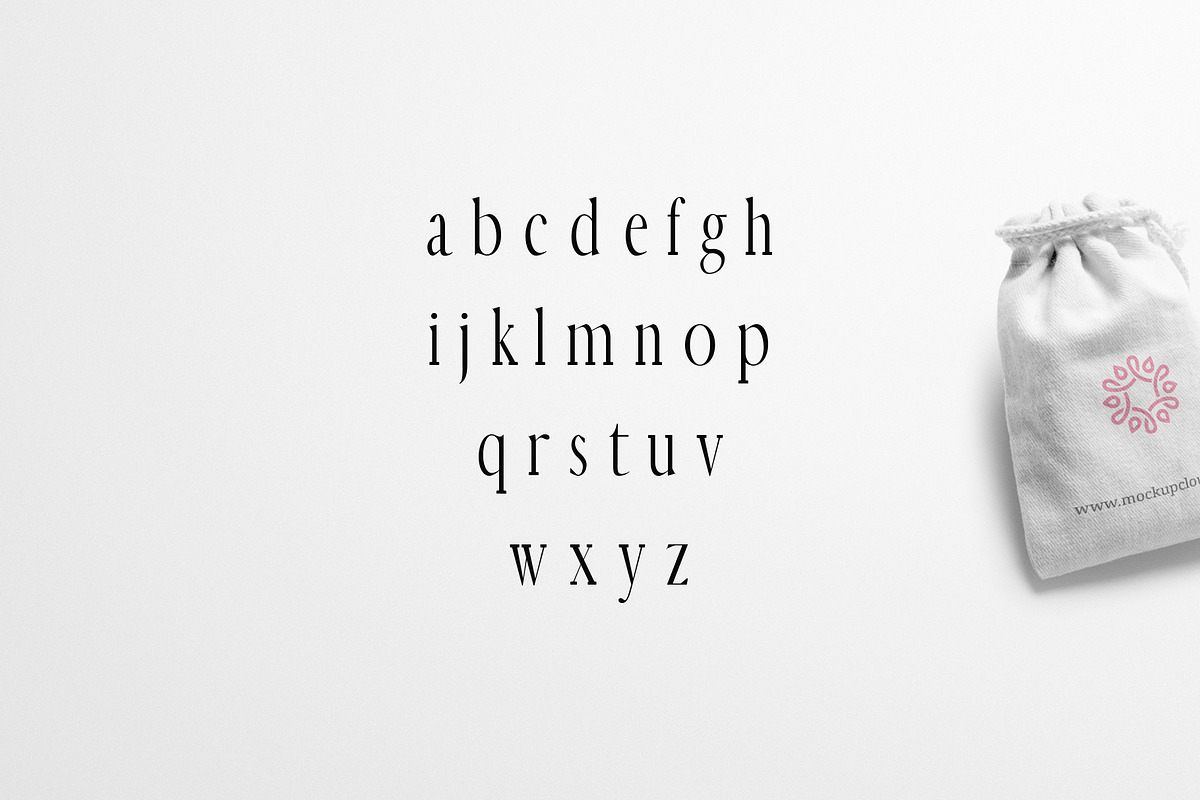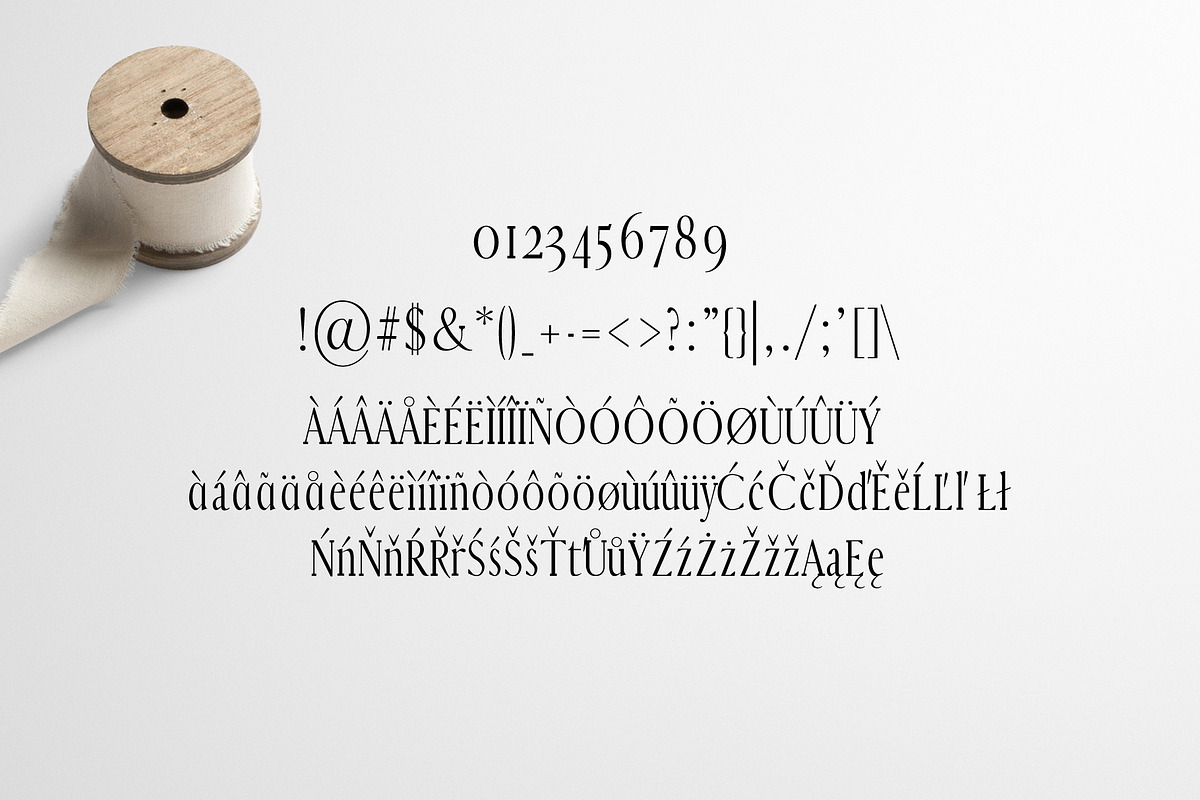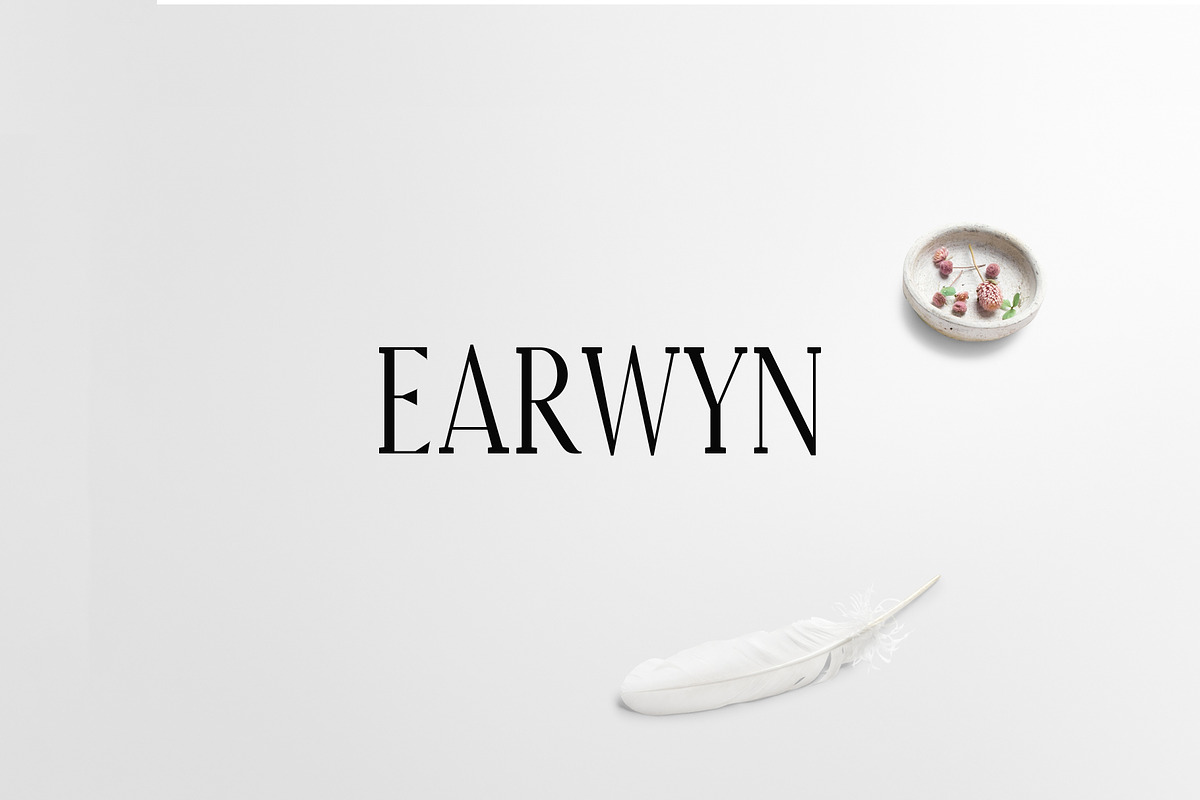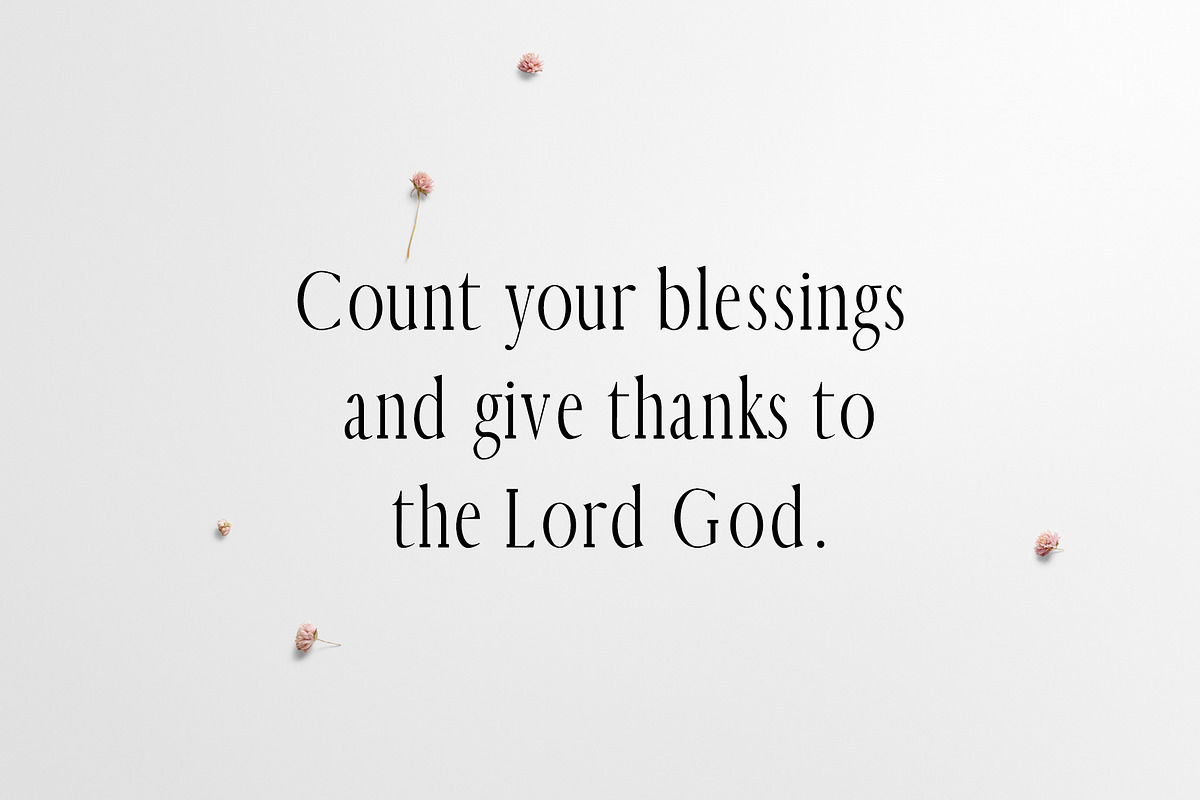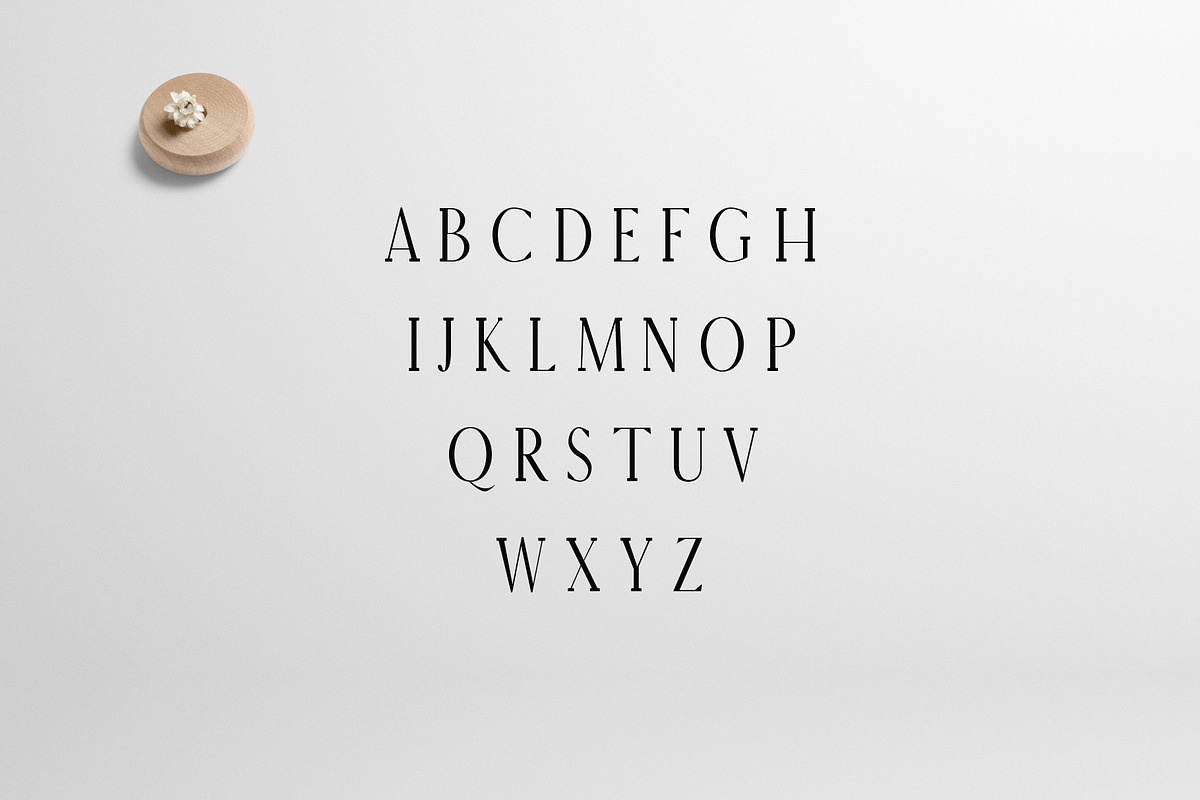
Earwyn Serif Font Family Pack
Earwyn Serif 3 Font Family Pack features unique and modern serif look and feel. Perfect for gorgeous logos, titles, web layouts and branding. It looks gorgeous in all caps with a wide-set spacing if you want to try a classy look, or beautiful on its own in capital and lowercase letters for something completely timeless.
Font Weight: Regular, Light and Thin
Earwyn Serif Font Family Pack by Creativetacos fits naturally into Branding, posters, packaging, typography.